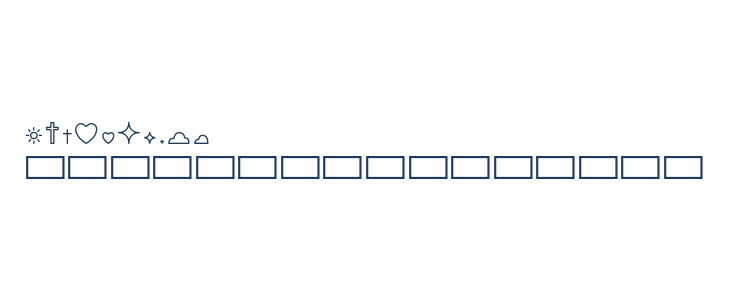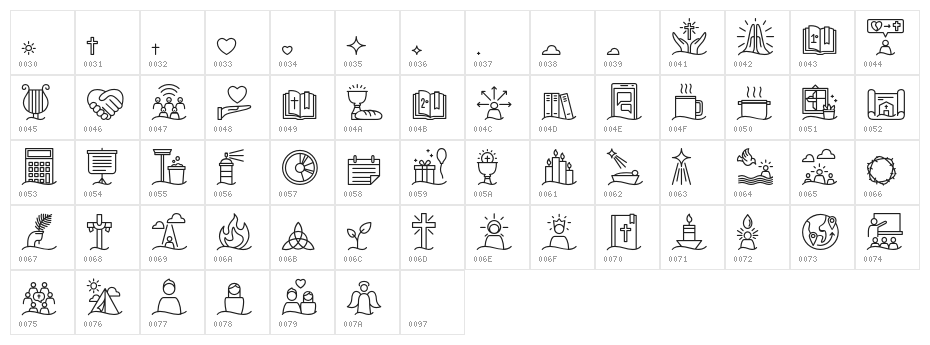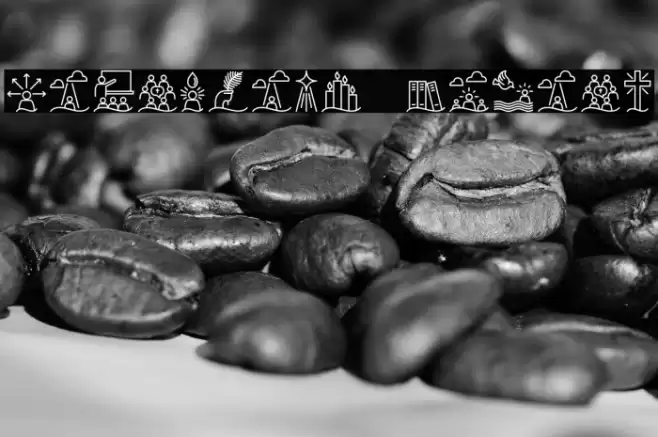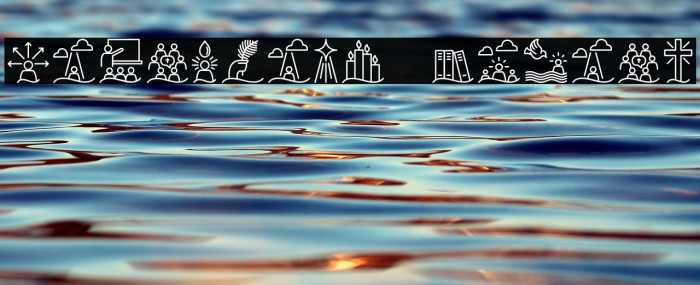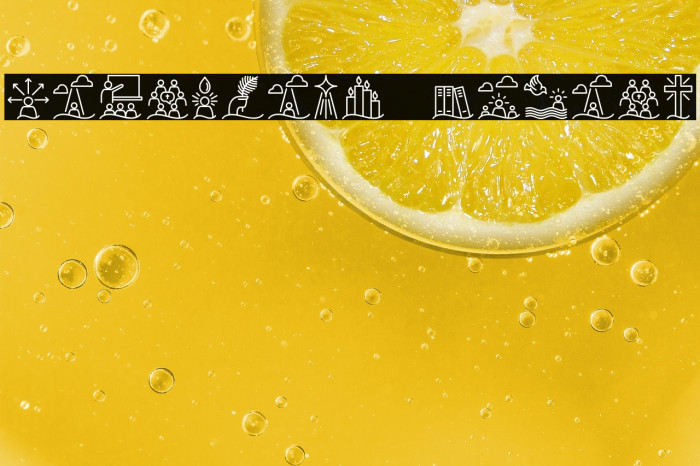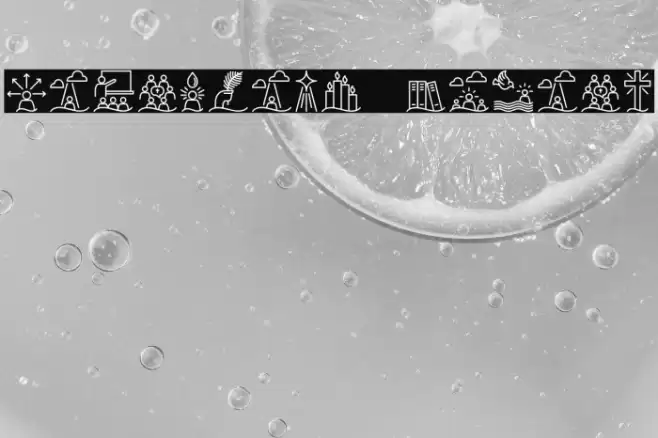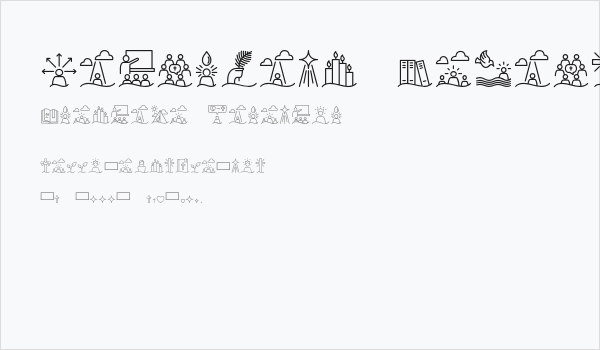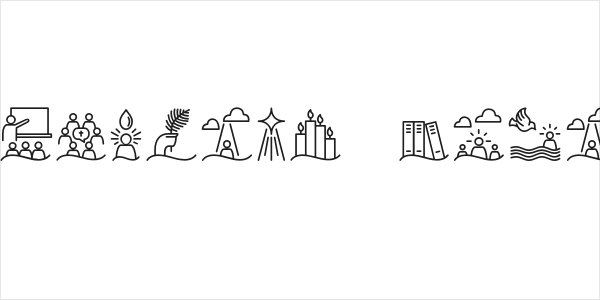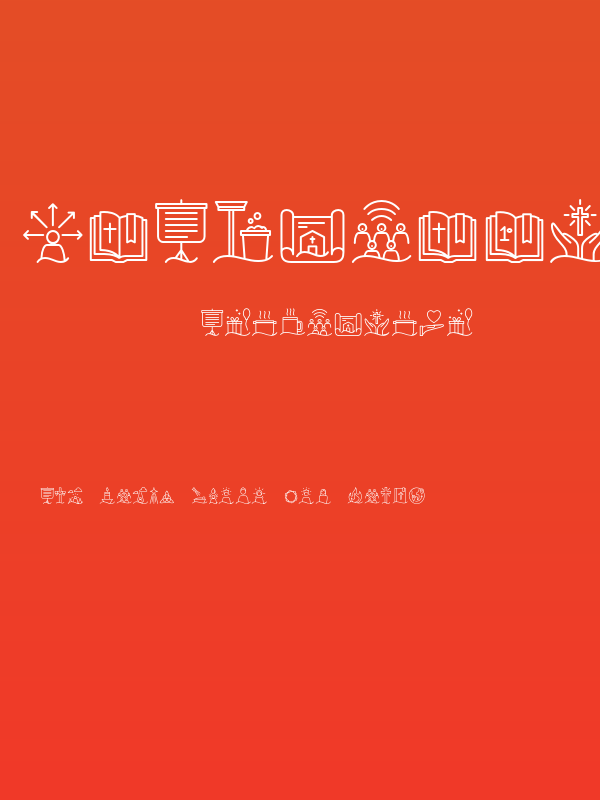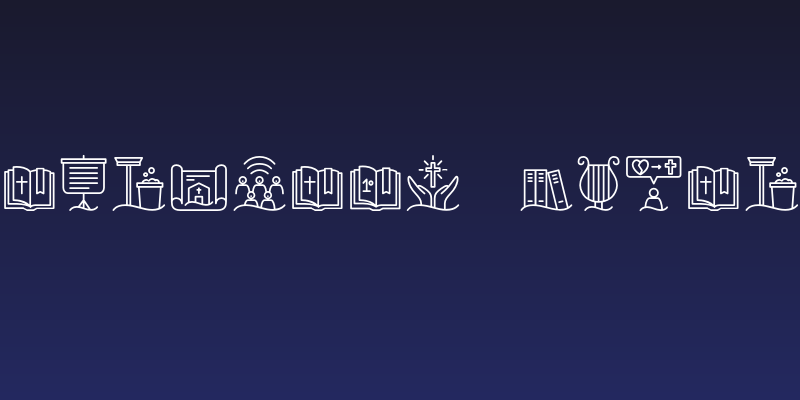
Liturgica Medium Font
Liturgica Medium Description
A decorative icon font featuring line-art religious and spiritual symbols, including crosses, hearts, books, candles, people, and various Christian motifs. The icons are clean, evenly weighted, and have a modern, minimalistic outline style.
| Use Case | Icons, Logos, Thematic dividers, Visual accents |
| Proposed Projects | Church bulletins, religious event flyers, worship presentation slides, Sunday school materials, faith-based websites. |